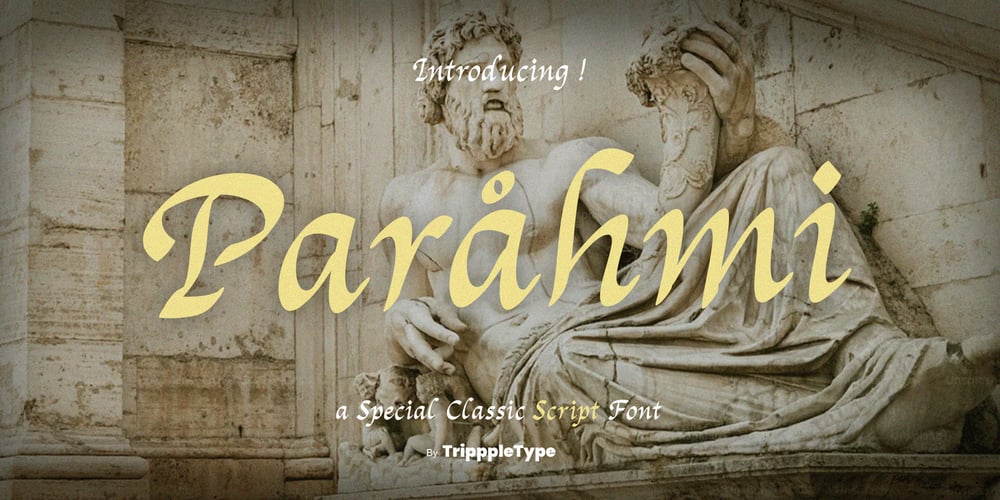
Parahmi Handwritten Script Font Family was designed by Kang Nur and published by TripppleType. Parahmi Handwritten Script contains 1 styles and family package options. Parahmi is a beautifully crafted classic script font, perfect for adding a touch of timeless elegance to your designs. Its fluid curves and sophisticated lines bring a sense of tradition to modern projects, making it ideal for branding, invitations, and captions that need an extra layer of class. Whether you’re working on a wedding invitation, logo, or an Instagram story, Parahmi adds a refined, luxurious feel to any visual.Bring timeless charm to your content with Parahmi. Download now and elevate your projects with this classic script font that speaks of grace, beauty, and elegance.